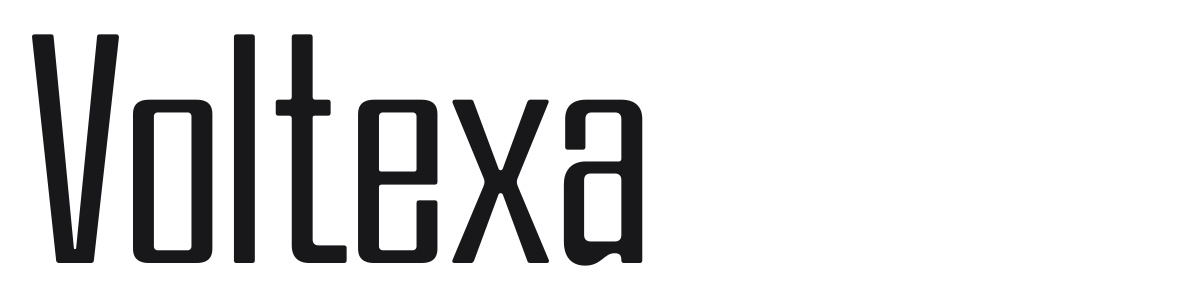
Voltexa
Voltexa is a strikingly condensed geometric sans with tall, narrow proportions and a strictly rationalized construction. Flat terminals and near-uniform stroke weight give it a dense, architectural quality that reads with force at large sizes. It pulls from modernist and Bauhaus traditions without feeling like a pastiche.